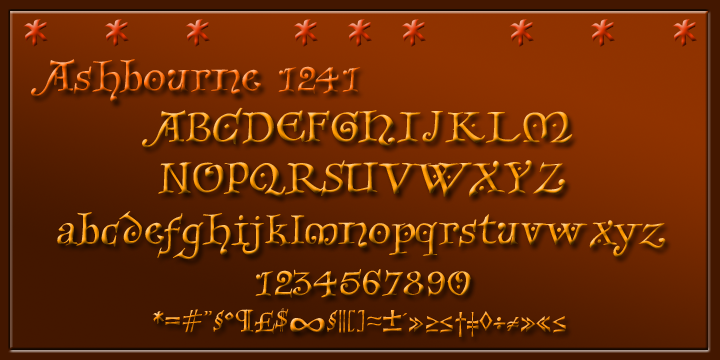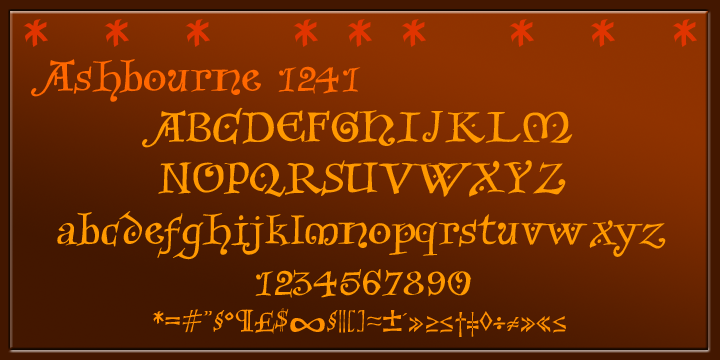
Ashbourne 1241
Rick Bradley - known for his Fine Hand, Bible Script, Bradley Hand and Calligraphic Ornaments - drew this font from a gravestone in Ashbourne, Derbyshire, dated 1241. The irregularity lends a special charm to this 'English dialect' version of the international Lombardic style, while the ornamental points reflect the mediaeval 'horror vacui', fear of empty spaces where the evil one might creep in with his influences. Perhaps most useful as a display font, but complete wth lower case and extras. Font and 'posters' by David.